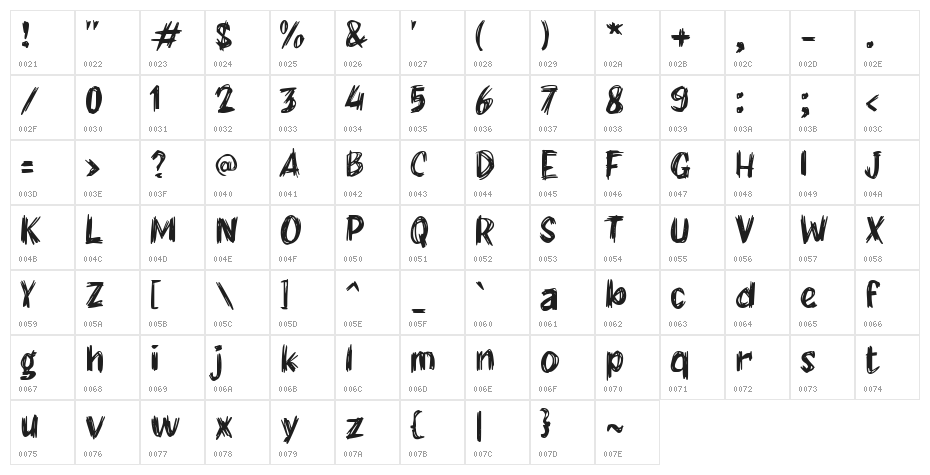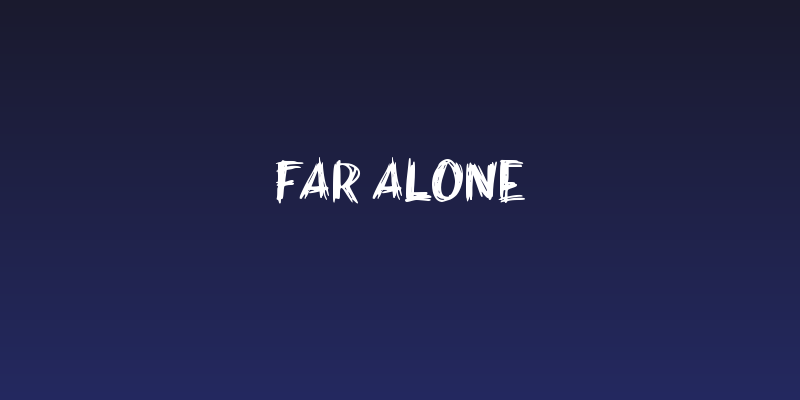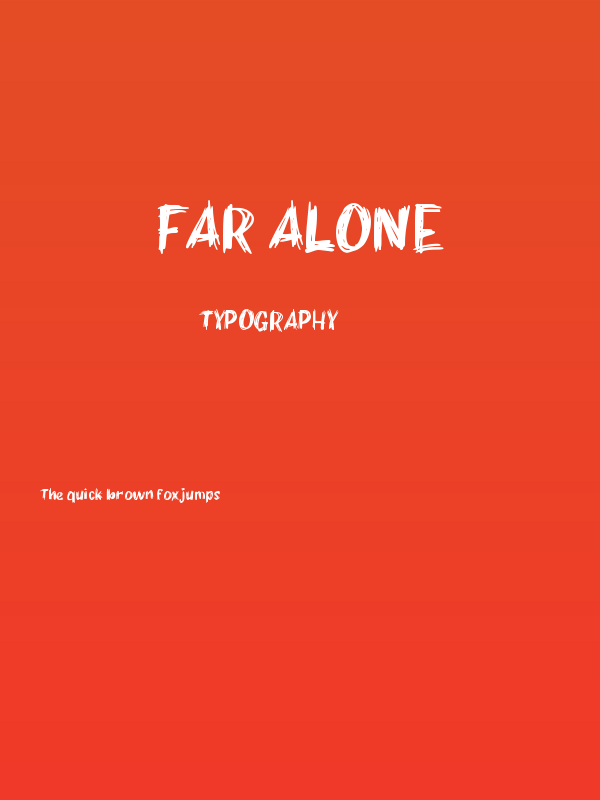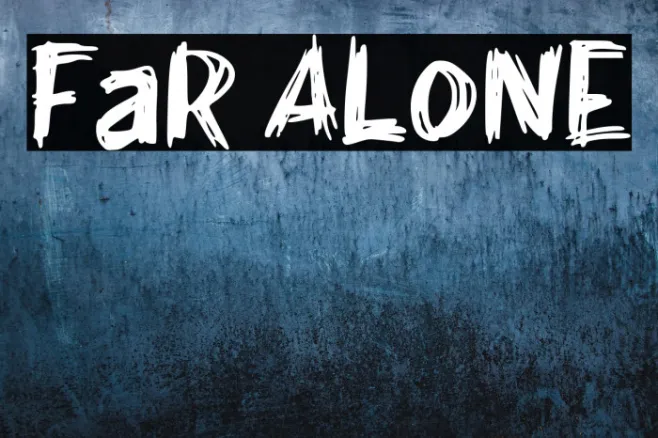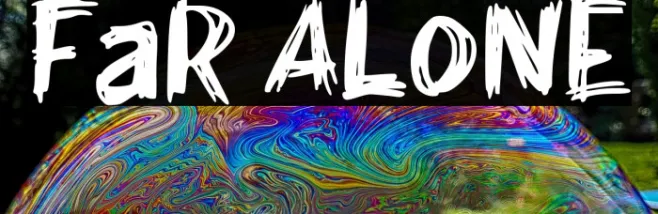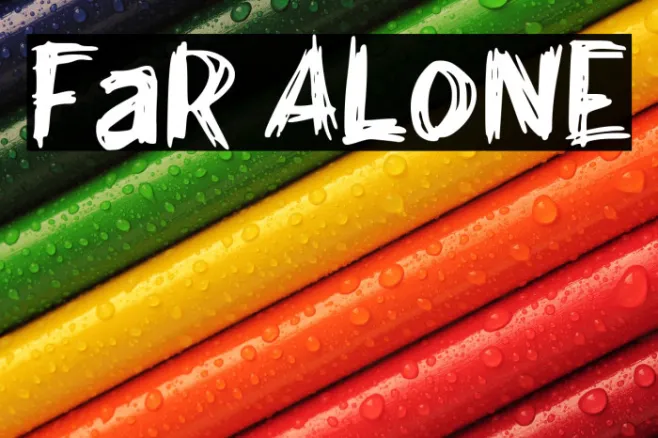
FaR ALoNE Font
FaR ALoNE Description
This font features a bold, expressive style with a hand-drawn appearance. The strokes are thick and uneven, giving it a raw, energetic feel. Each character is unique, with jagged edges and varying line thicknesses that create a sense of movement and dynamism. The uppercase and lowercase letters maintain a consistent style, while the numbers and special characters complement the overall aesthetic. This font is ideal for projects that require a bold, artistic touch, such as posters, album covers, or creative branding.
| Proposed Projects | Ideal for posters, album covers, creative branding, and artistic projects. |